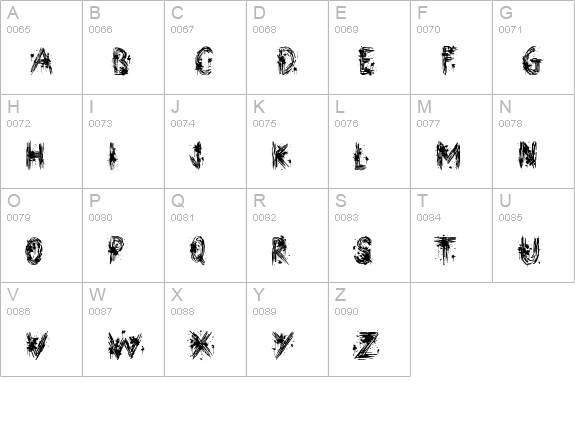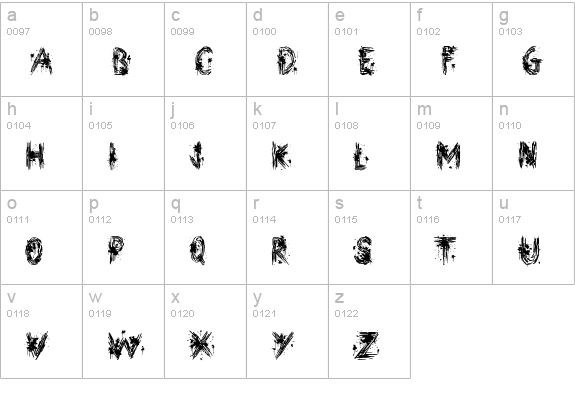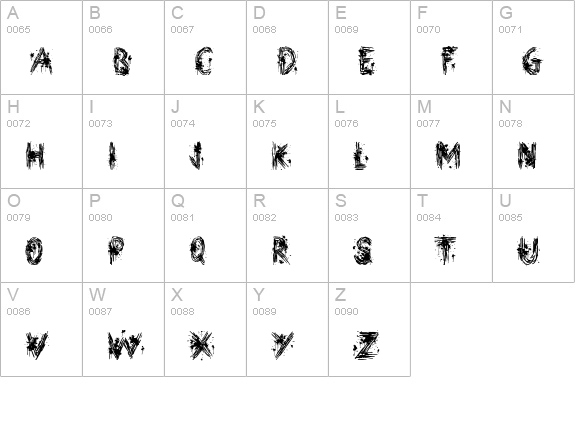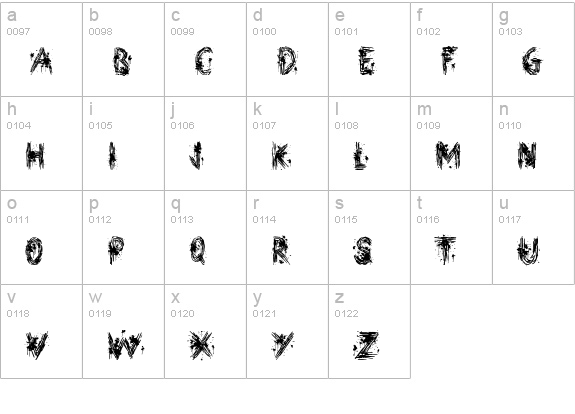
Street Ink Font Details
Street Ink is a bold and dynamic font that embodies the spirit of urban street art. Its edgy and graffiti-inspired design exudes energy and creativity, making it the perfect choice for projects that demand a distinctive and modern look. With its sharp lines and rough edges, Street Ink captures the raw essence of street culture and brings it to life on the page. This versatile font is suitable for a wide range of design applications, including logos, posters, album covers, and more. Its bold and attention-grabbing appearance ensures that your message will be noticed and remembered. Whether you're looking to add a touch of urban flair to your artwork or create a bold statement, Street Ink has got you covered. What sets Street Ink apart is not just its striking design, but also its accessibility. This font is available for free download exclusively at FontsMarket.com, making it easily accessible to designers and creatives worldwide. By offering Street Ink free of charge, we aim to empower individuals to express their creativity without any barriers. So, if you're looking to make a bold statement with your design, look no further than Street Ink. Download it for free at FontsMarket.com and unleash your creativity on the streets of typography. Get ready to make your mark with Street Ink.